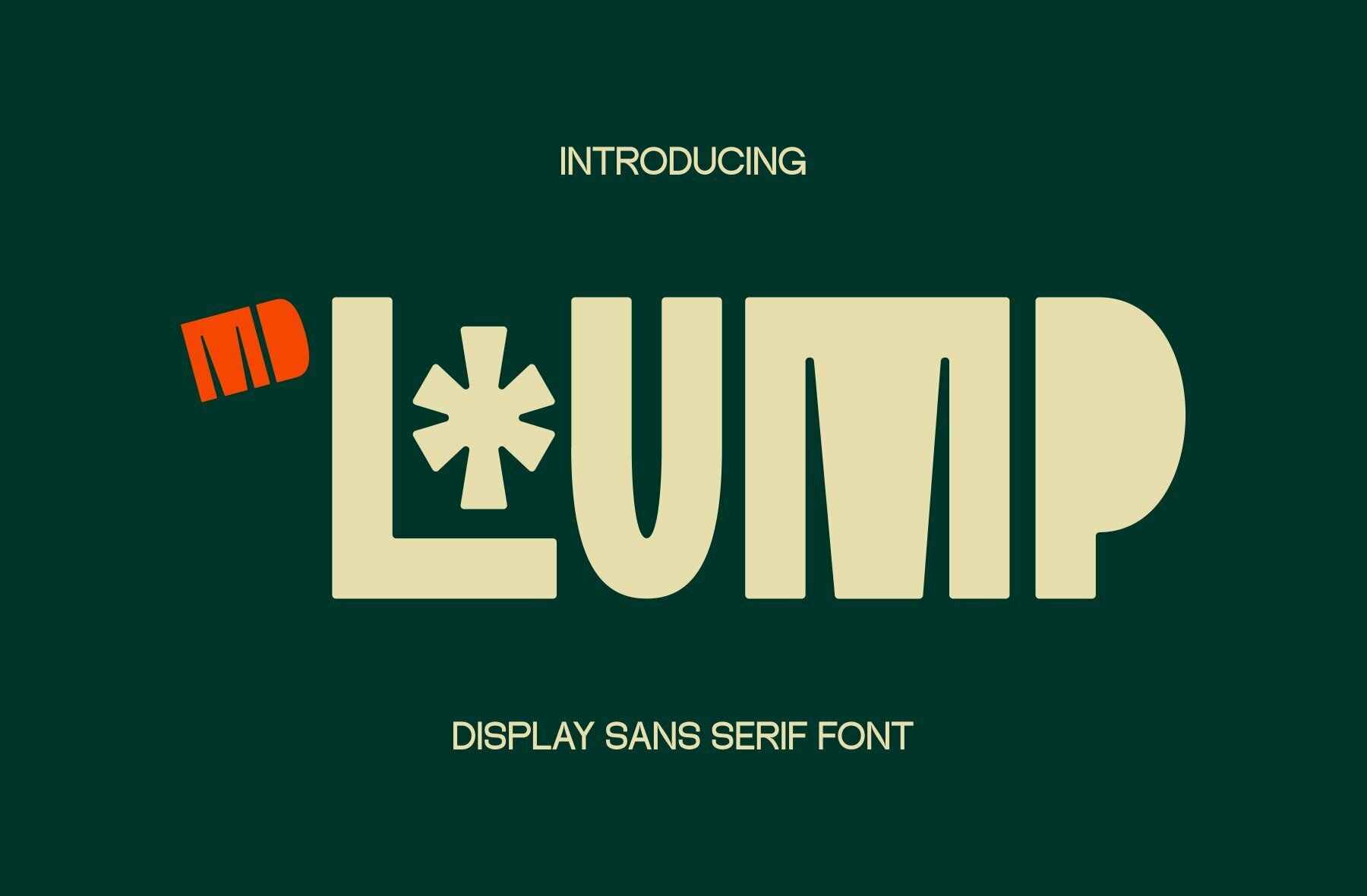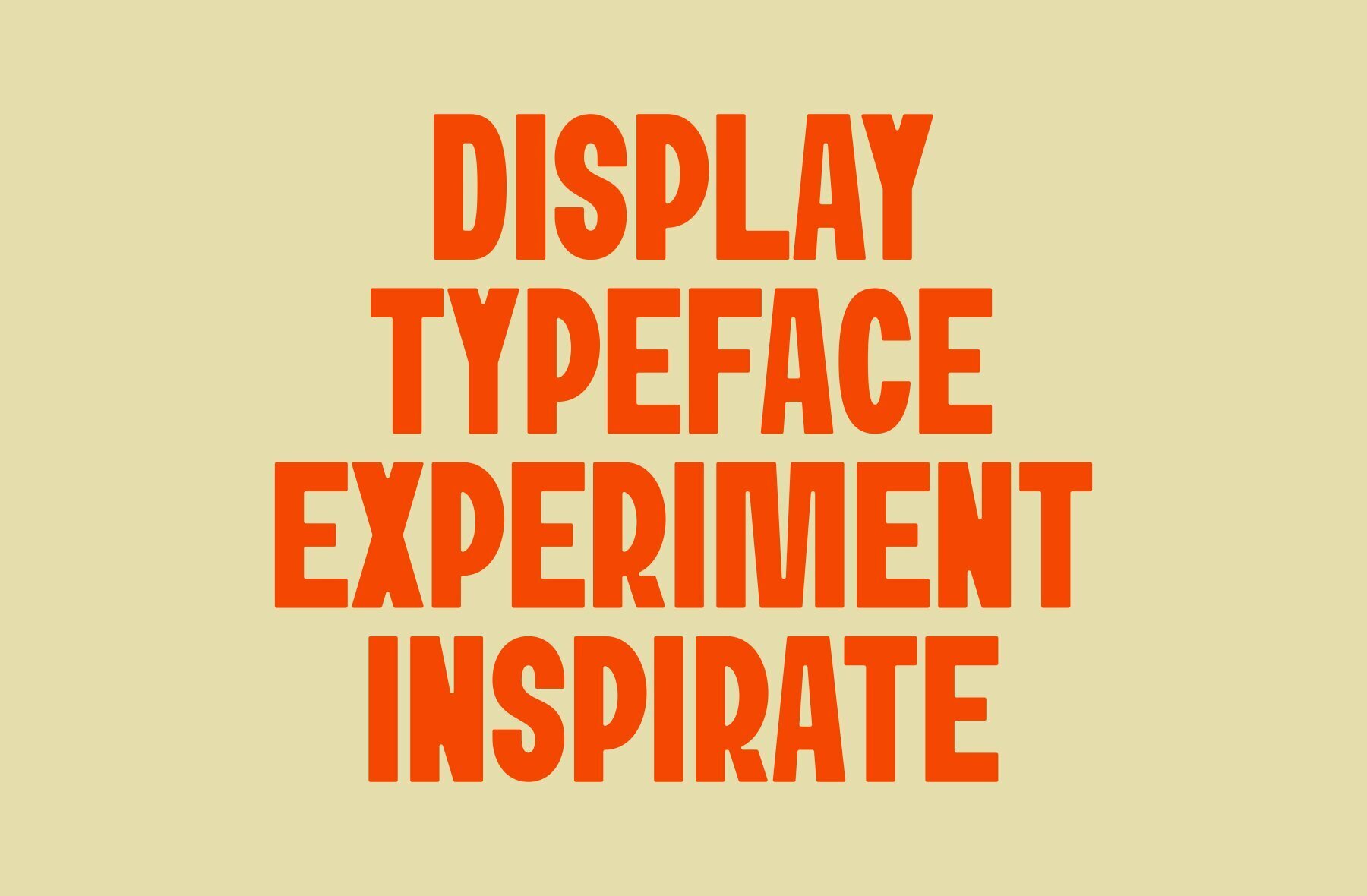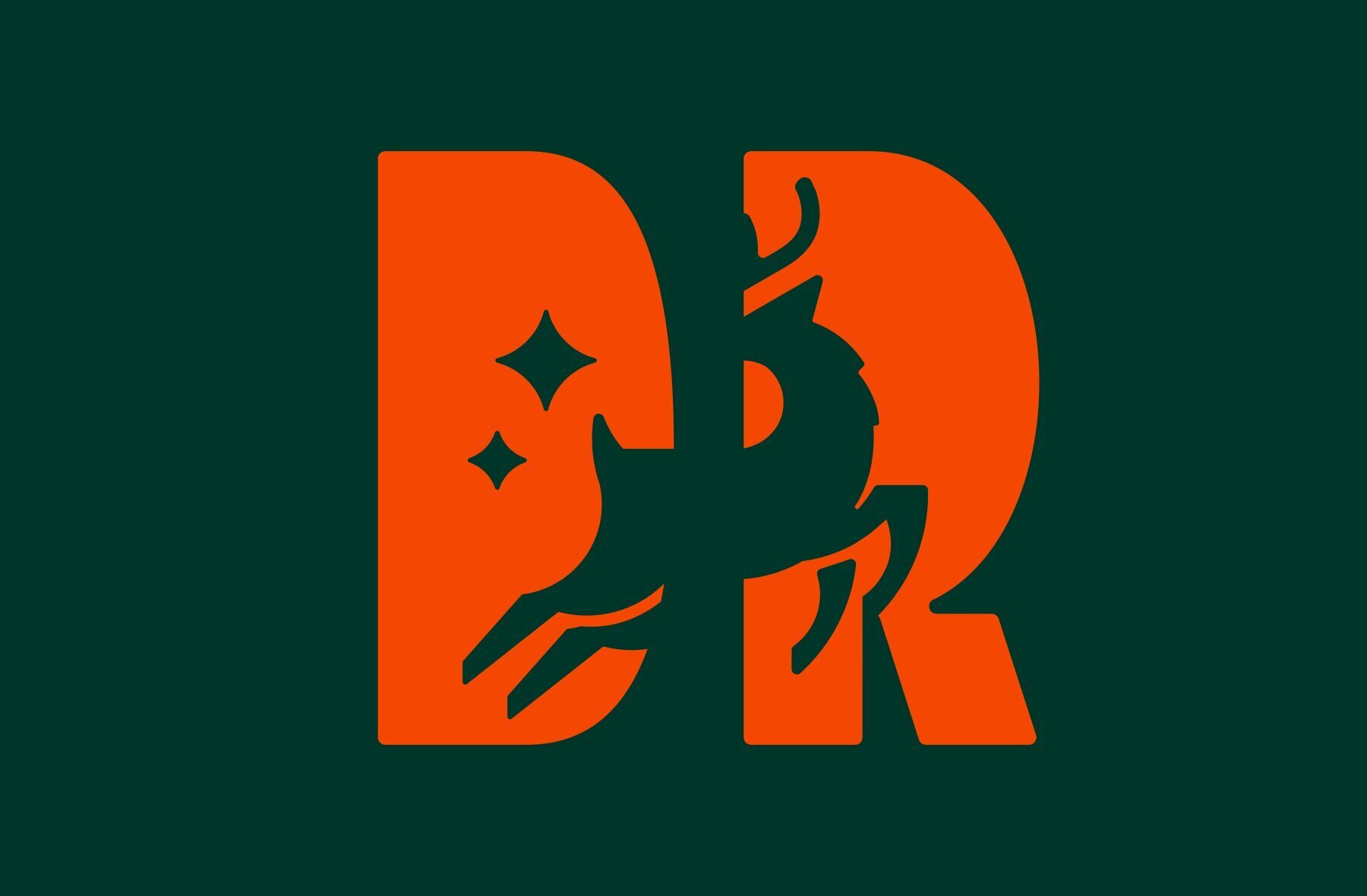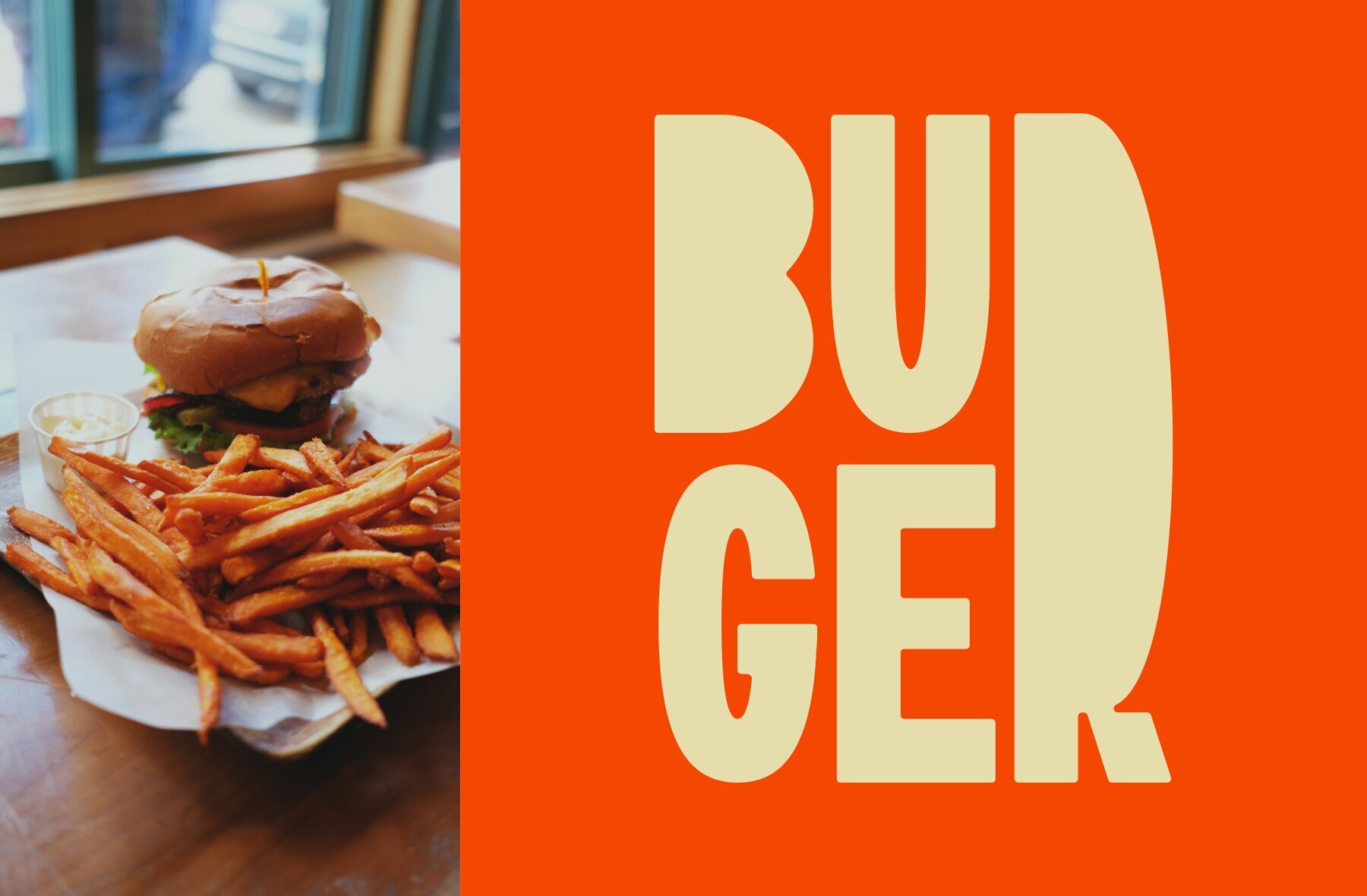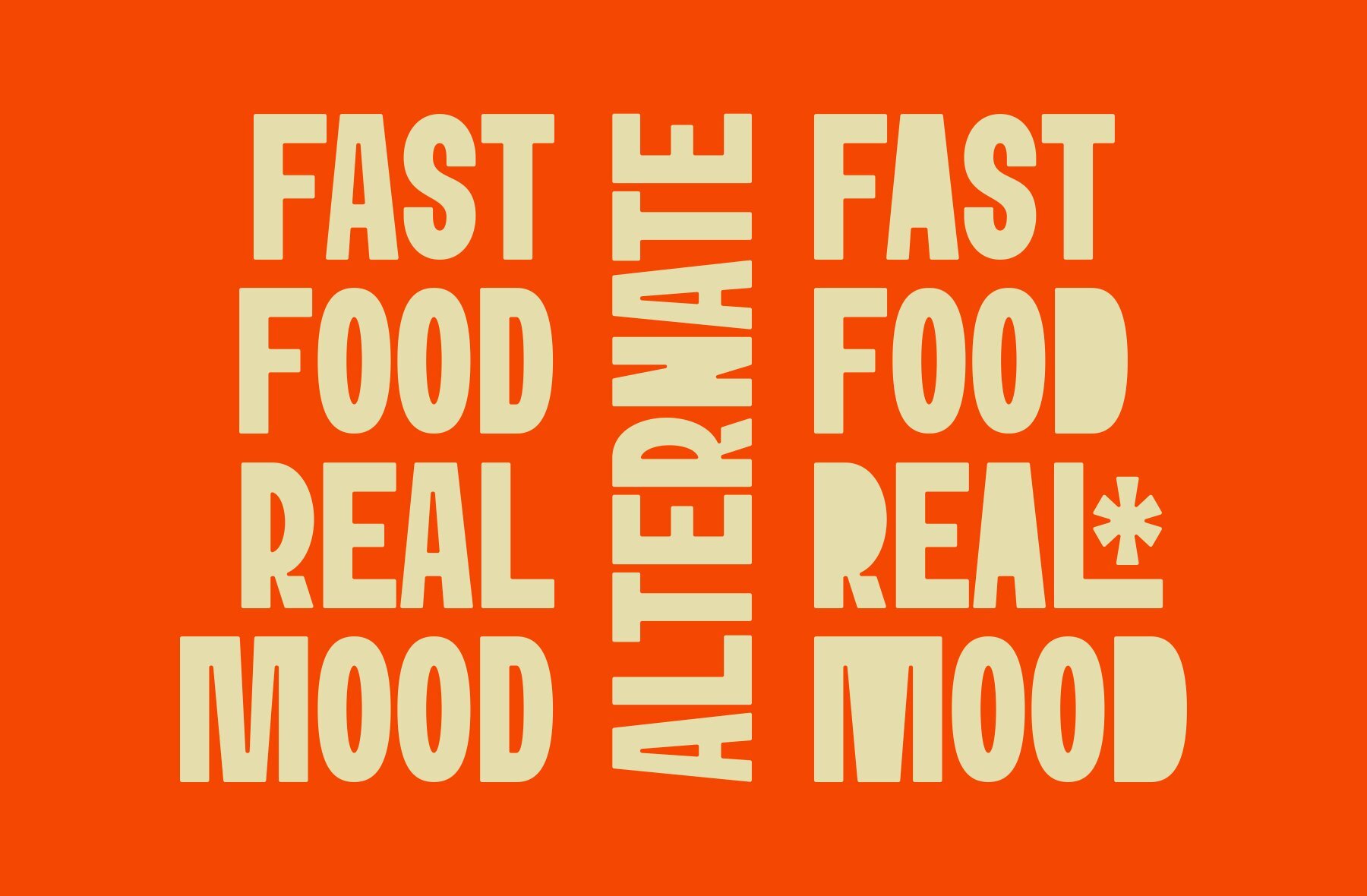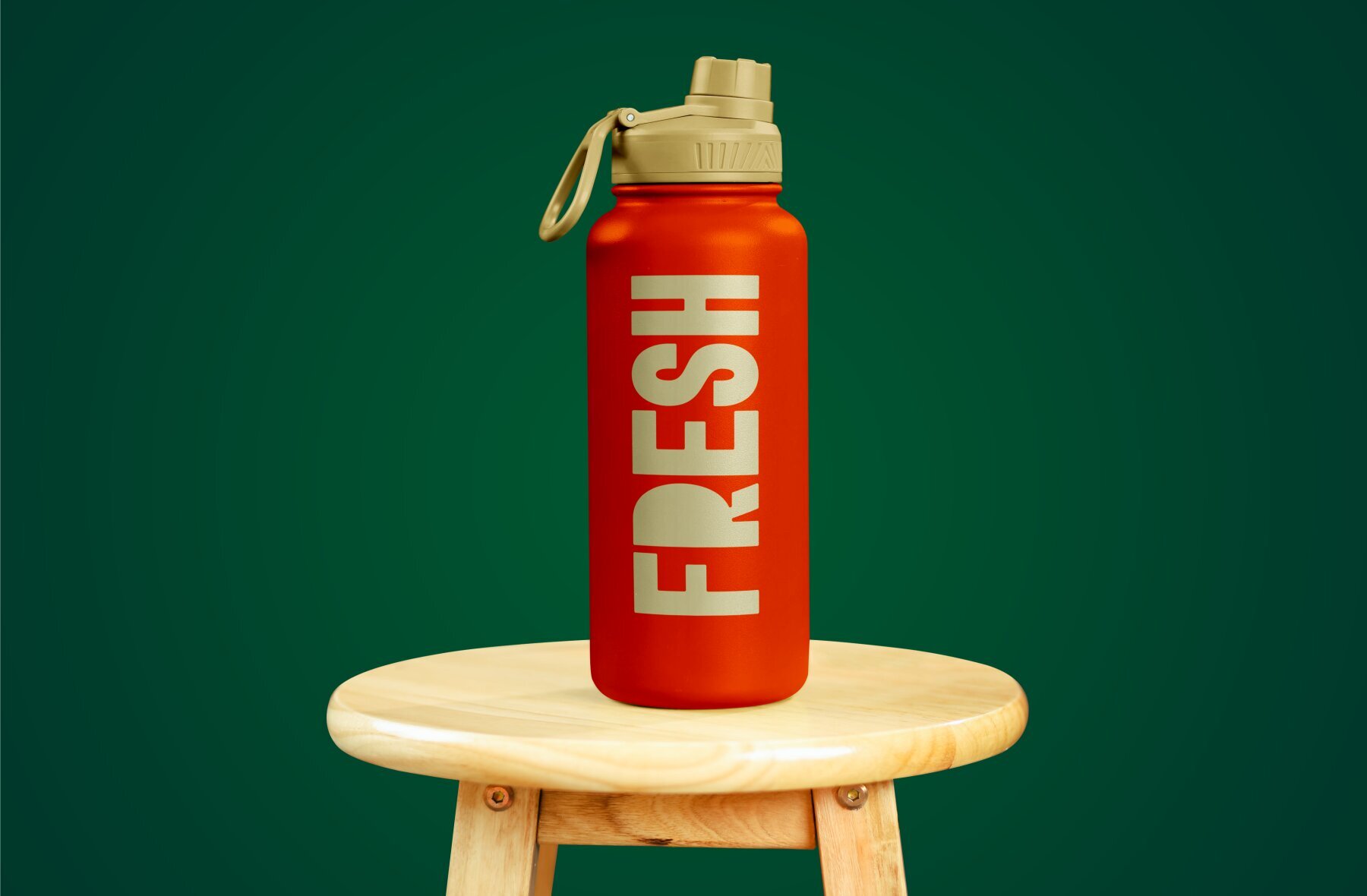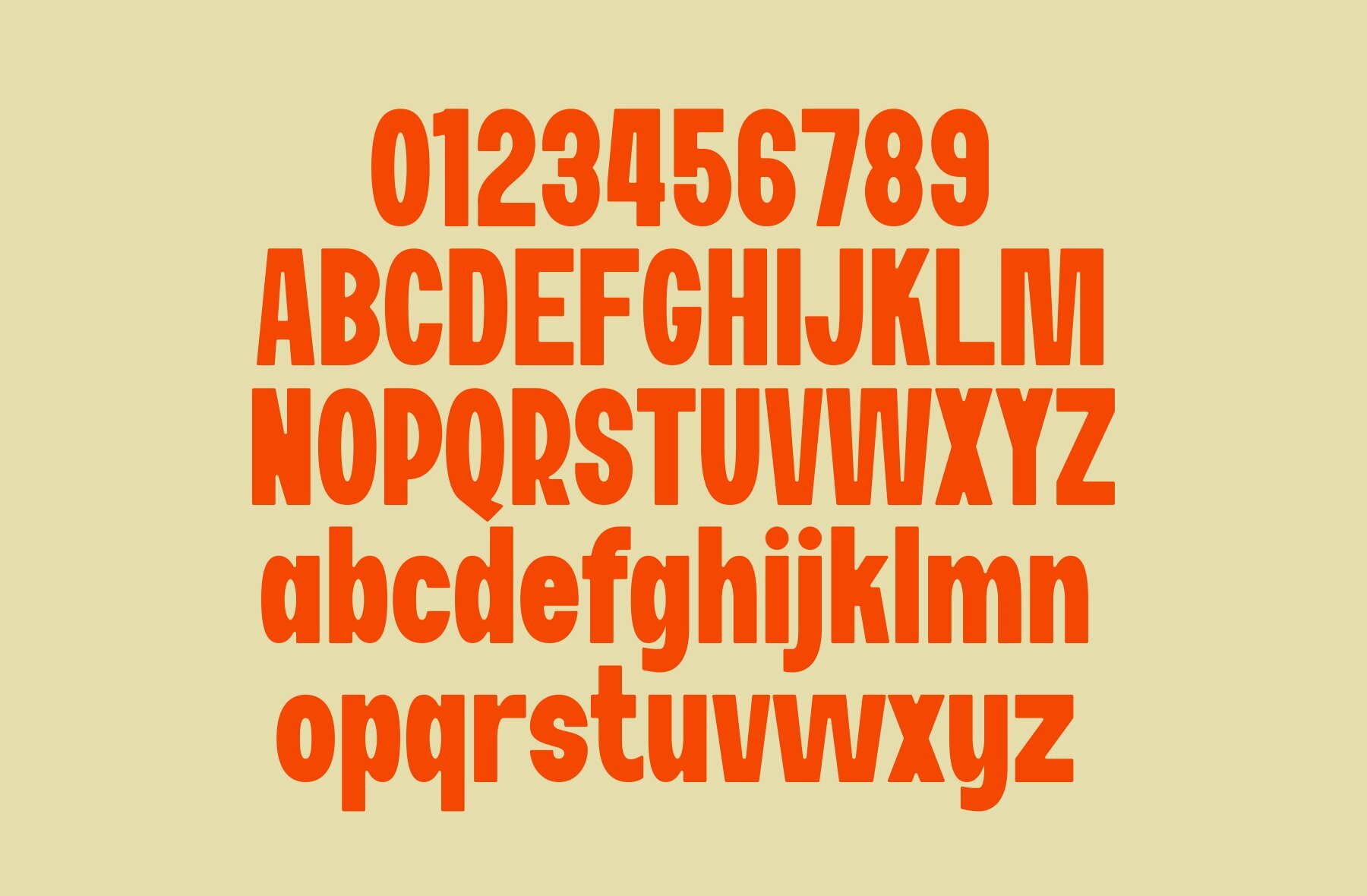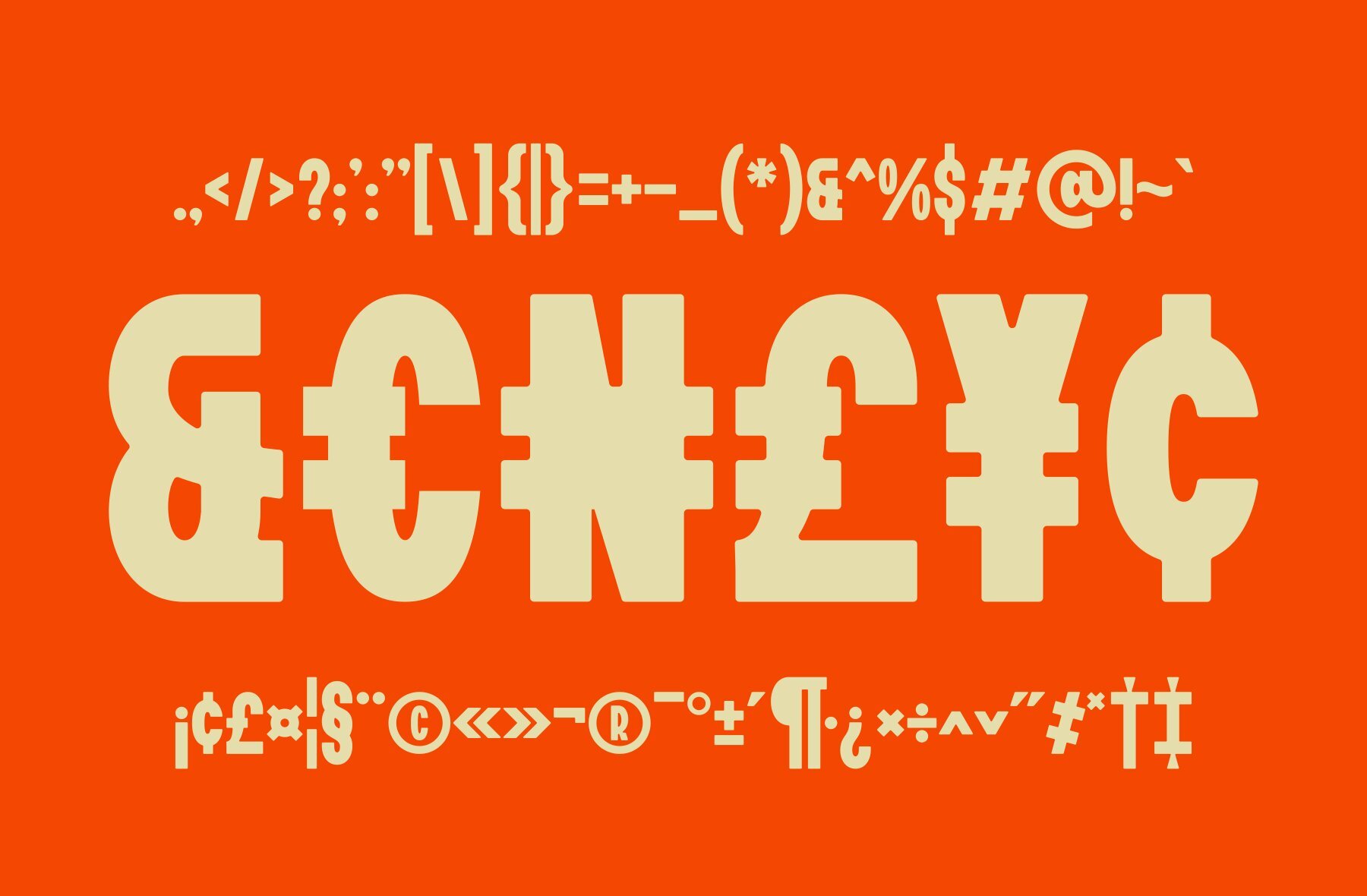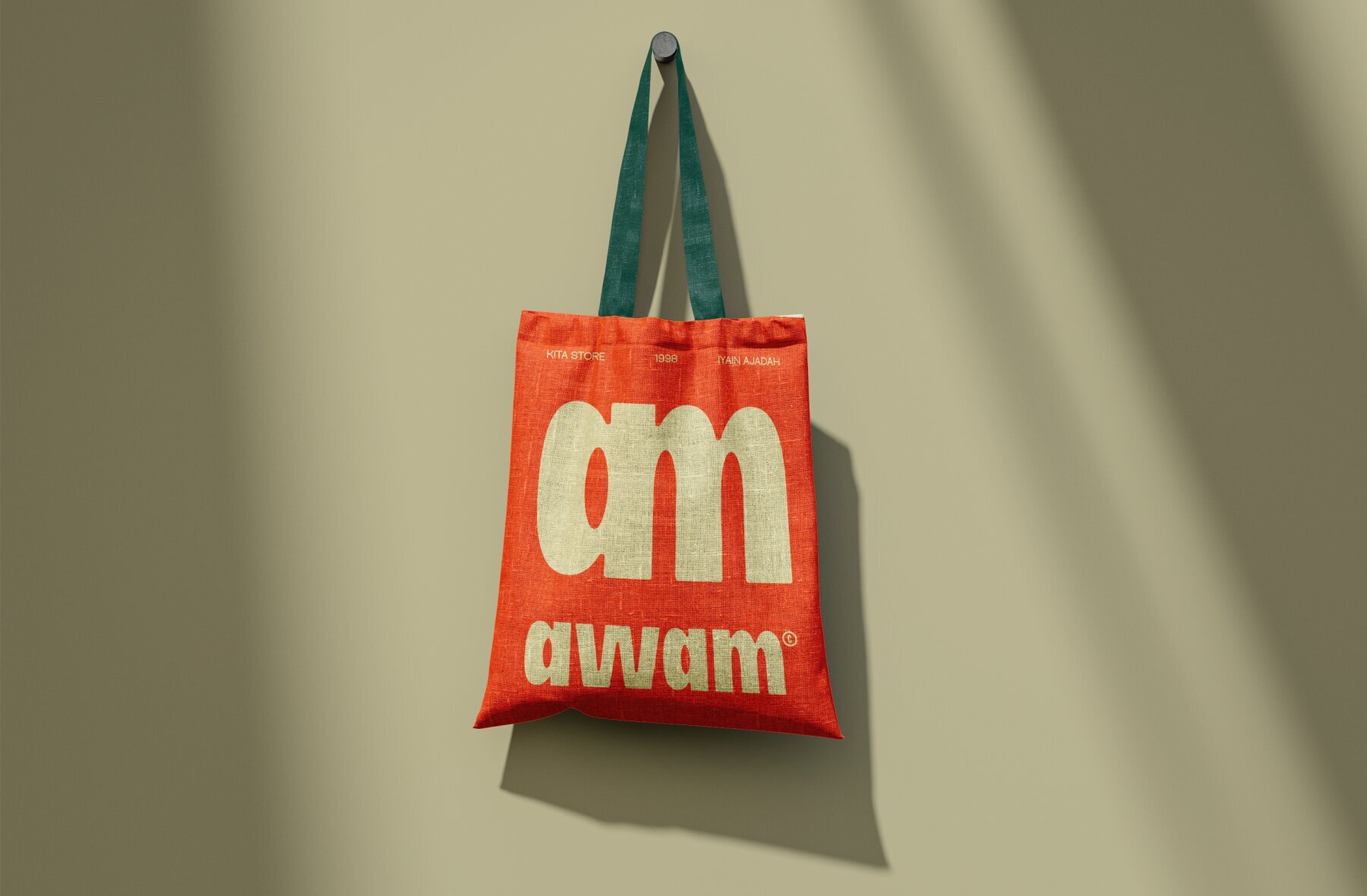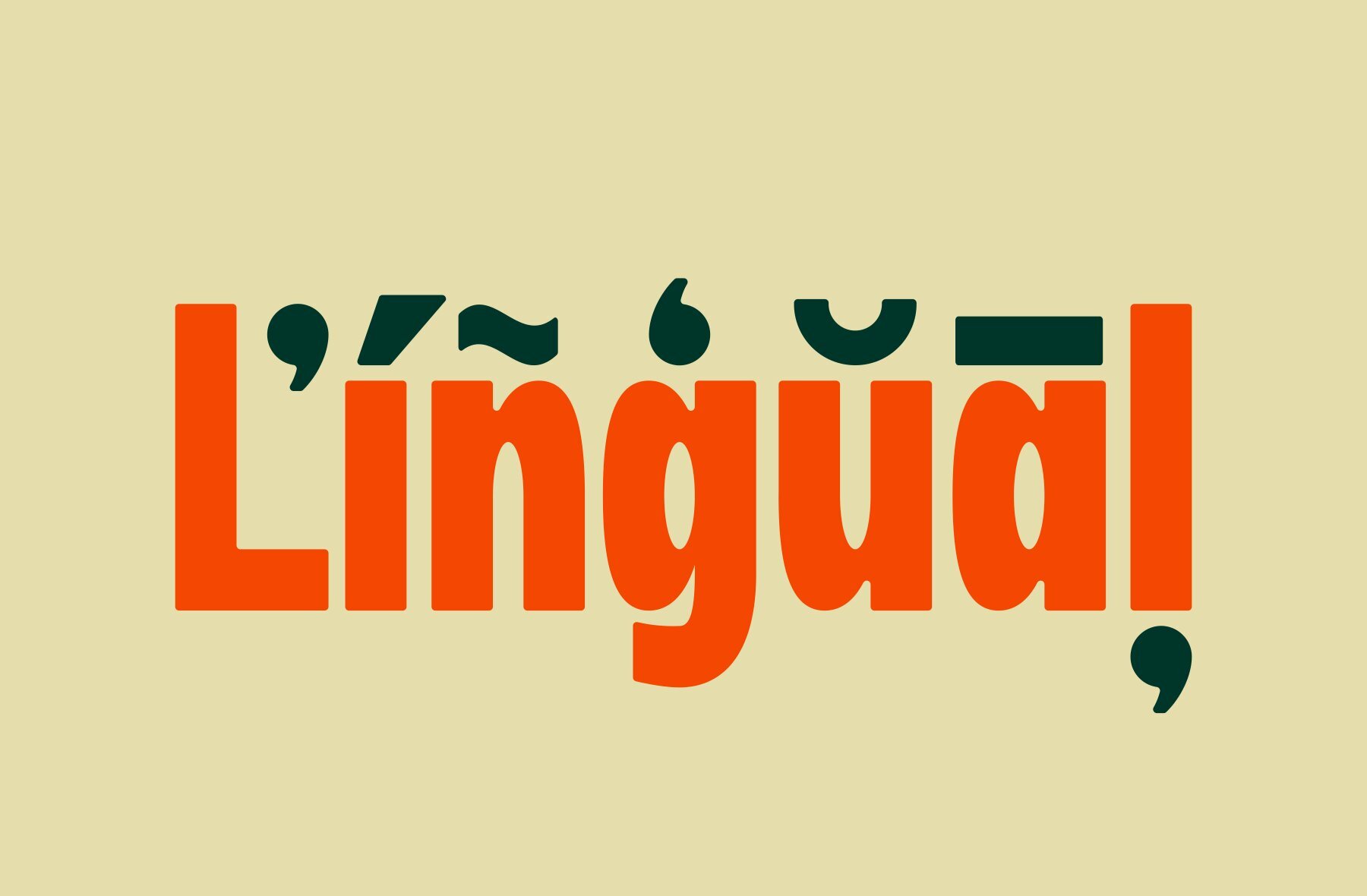
Md Lump
This bold, heavy sans-serif font is ideal for creating clean and modern designs. Its blocky and strong appearance makes it perfect for use in headlines, titles, and display purposes. With clear geometric shapes and solid lines, this font excels in branding, posters, and advertising where minimalist, attention-grabbing text is essential.